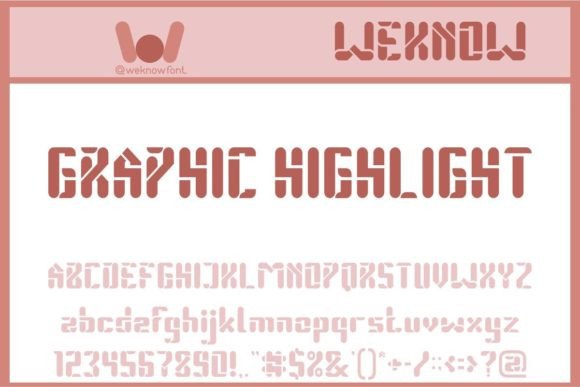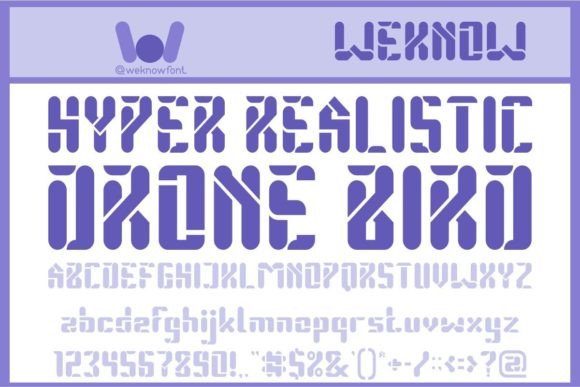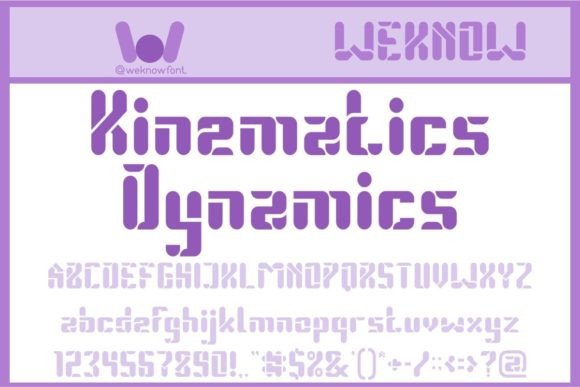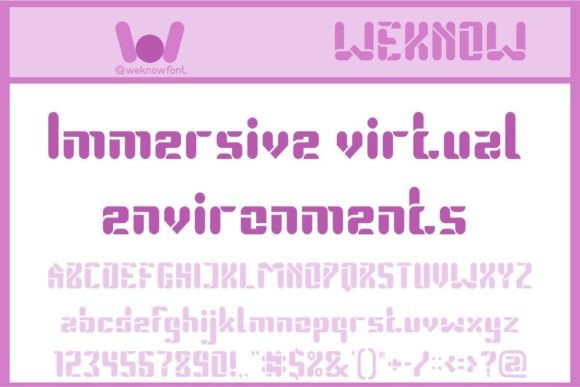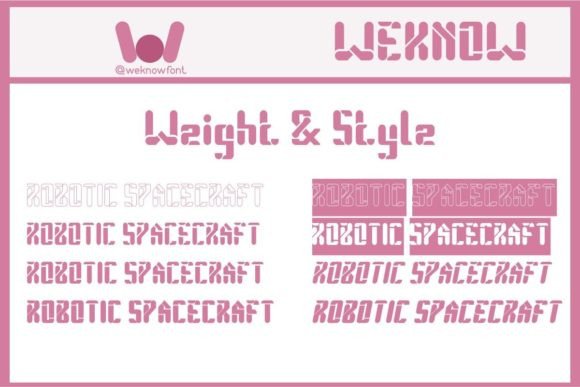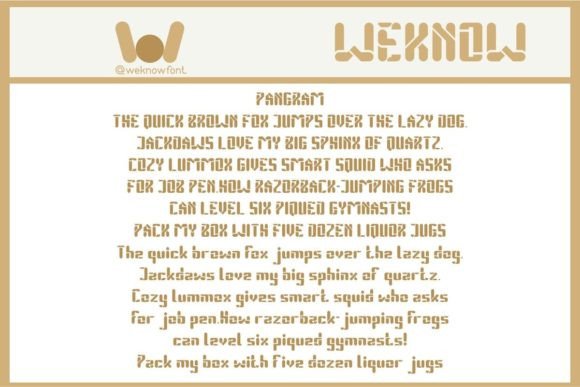
Introduction to Robotic Spacecraft Font
Have you ever stared at a blank canvas, desperately seeking the perfect font to bring your creative vision to life? It’s that moment when inspiration strikes, and the universe aligns to guide your design. For those who crave innovation and cutting-edge style, the Robotic Spacecraft Font is here to revolutionize your creative projects.
As a designer, you’re constantly on the lookout for unique design resources that set your work apart. The Robotic Spacecraft Font is a high-quality, futuristic display font that embodies the essence of modern technology and innovation. Its sleek, cosmic design makes it an ideal choice for logos, corporate branding, and captivating headlines that demand attention.
Key Features of Robotic Spacecraft Font
- High-quality design suitable for a creative project, such as a sci-fi movie or video game.
- Designed with precision and attention to detail, resulting in a unique and futuristic aesthetic.
- Perfect for designers and artists working on a project related to space exploration, robotics, or technology.
Honest Review: Robotic Spacecraft Font
Here are some things that work well for this font:
- ✨ The font’s high quality ensures that it will look great even at large sizes, making it perfect for titles and headings.
- ✨ The futuristic aesthetic is perfect for any project that needs a touch of sci-fi or tech-inspired design.
- ⚠️ The font may not be suitable for projects that require a more traditional or classic look.
- ⚠️ Some users may find the font a bit too futuristic or overwhelming, so it’s essential to use it judiciously.
Overall, I’m impressed with the Robotic Spacecraft Font. It’s a valuable design resource that’s perfect for any creative project that needs a high-quality, futuristic look. Just be sure to use it thoughtfully and in context.
Getting the Most Out of Robotic Spacecraft Font
To get the most out of the Robotic Spacecraft Font, use it with a transparent background to create a futuristic look. Experiment with different font sizes and styles to add depth to your design. This font is perfect for creative projects, such as sci-fi themed designs or futuristic concepts.
The Robotic Spacecraft Font is commonly used in sci-fi themed designs, futuristic concepts, and creative projects. It’s also suitable for use in presentations, documents, and graphics, thanks to its high-quality design and transparent background.
Is the Robotic Spacecraft Font available in different styles or weights?
Yes, the Robotic Spacecraft Font is available in several different styles and weights, including bold, italic, and regular. This allows designers to choose the perfect font for their creative project, whether it’s a futuristic sci-fi design or a sleek and modern logo. The font’s versatility makes it an ideal design resource for designers of all levels.